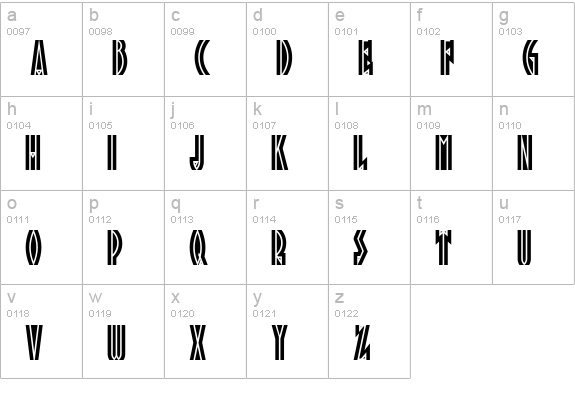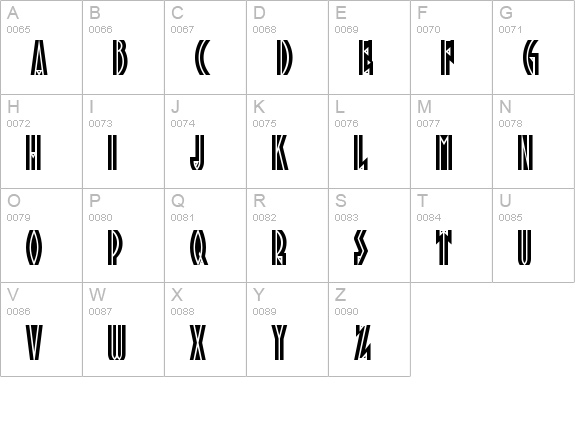
TropicanaNF Font Details
TropicanaNF is a vibrant and dynamic font that exudes a sense of tropical energy. With its bold and playful design, this font is perfect for capturing attention and adding a touch of exotic flair to any project. The letters are beautifully crafted with intricate details, creating a unique and eye-catching visual experience. What sets TropicanaNF apart from other fonts is that it is completely free! Yes, you read that right. This stunning font is freely available to download at FontsMarket.com. Whether you're a designer looking to add some excitement to your latest creation or a content creator searching for a font that embodies the spirit of paradise, TropicanaNF is the perfect choice. The beauty of TropicanaNF lies not only in its striking appearance but also in its versatility. This font can be used for a variety of purposes, from branding and advertising to social media graphics and invitations. Its bold and captivating presence will effortlessly elevate any design, making it memorable and engaging. As you explore the possibilities of TropicanaNF, you'll discover its ability to transport you to a tropical paradise. Its flowing lines and organic shapes evoke images of lush palm trees, sandy beaches, and crystal clear waters. Whether you're working on a travel brochure, a cocktail menu, or a summer-themed party invitation, TropicanaNF will instantly transport your audience to a world filled with sun-kissed adventures and carefree vibes. So why wait? Embrace the spirit of the tropics and bring your designs to life with TropicanaNF. Download this stunning font for free at FontsMarket.com and unleash your creativity like never before. Let TropicanaNF be the catalyst that takes your projects from ordinary to extraordinary.